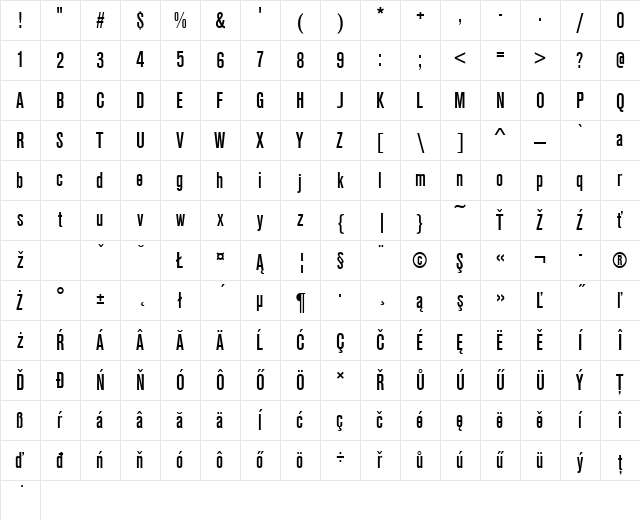
AcciusTEEMedCon Regular Free Font
AcciusTEEMedCon Regular
Design Context for AcciusTEEMedCon
AcciusTEEMedCon is a composed and adaptable typeface that performs quietly and consistently across a wide range of design contexts.